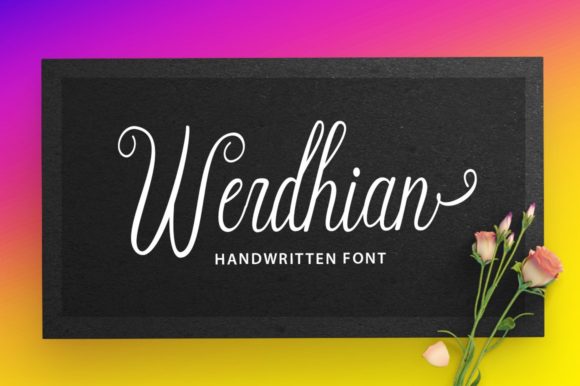
Introducing the extraordinary Werdhian Font, a captivating script that dances across the page with grace and beauty. Its tall and elegant letters evoke a sense of sophistication and allure, making it the perfect choice for crafting modern designs that demand attention.
With Werdhian, you can unleash your creativity, transforming words into art. Its versatility knows no bounds, from enchanting logos and branding to breathtaking posters and wedding invitations. Each letter is imbued with personality, adding a touch of magic to your designs.
The PUA encoding makes it effortless to access a world of glyphs and swashes, empowering you to add intricate details and flourishes to your creations. Werdhian is not just a font; it's a portal to a realm of boundless possibilities, where your imagination takes flight and your designs come alive. Embark on a typographic journey with Werdhian, where artistry and elegance collide to create something truly extraordinary.